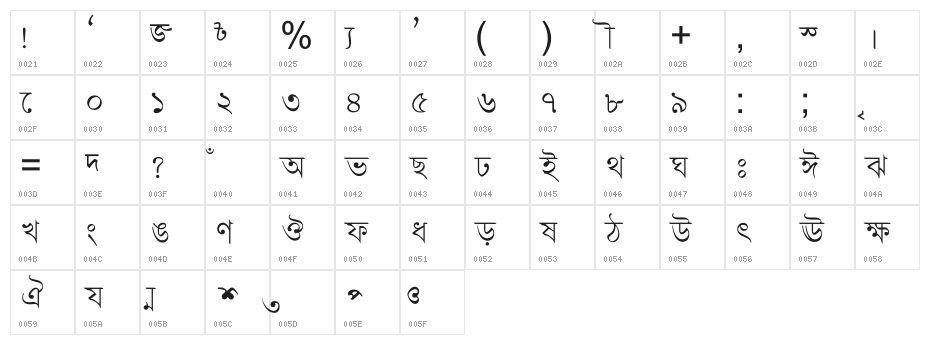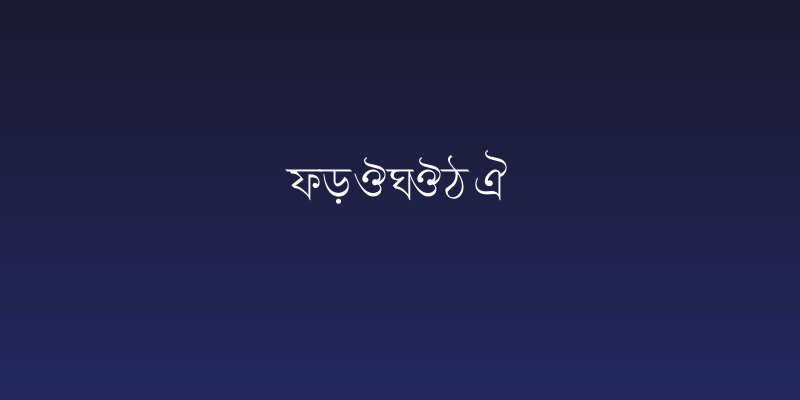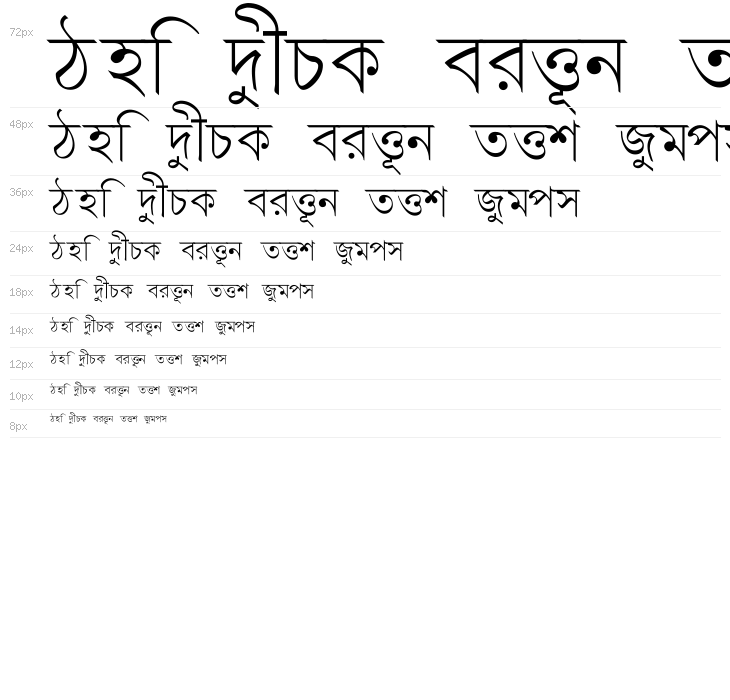
Progoty Font
| Caz de utilizare | Headlines, Body text, Cultural publications |
| Proiecte propuse | Ideal for cultural publications, educational materials, and artistic projects that require a touch of traditional elegance. |